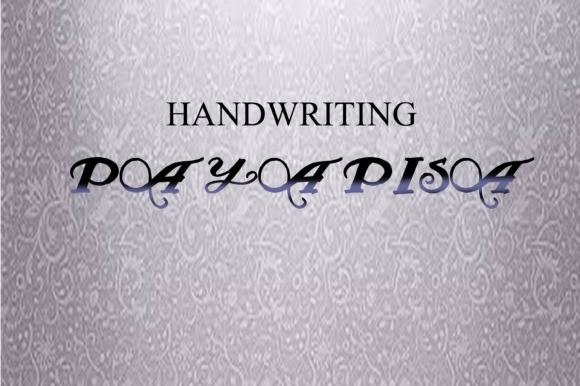
Buckle up, font fanatics! Prepare to be swept off your feet by the tantalizing Payapisa Font, a mesmerizing masterpiece that will ignite your creativity and leave you yearning for more.
Picture this: a harmonious blend of playful elegance that dances across your designs, captivating the hearts of all who behold it. Payapisa's bold strokes and luscious curves paint a symphony of visual delight, transforming your creations into works of art.
Step into a world where your imagination knows no bounds. Whether you're crafting an unforgettable logo that commands attention, or designing a greeting card that exudes warmth and charm, Payapisa is your trusty companion, guiding you towards typographic perfection.
With Payapisa, you'll bid farewell to monotonous fonts and embrace a universe of expression. Its vibrant personality shines through in every letterform, adding a touch of whimsy to your branding, posters, and more.
Don't let your designs settle for the ordinary. Infuse them with the magnetic allure of Payapisa and watch as they leap off the screen and into the hearts of your audience.